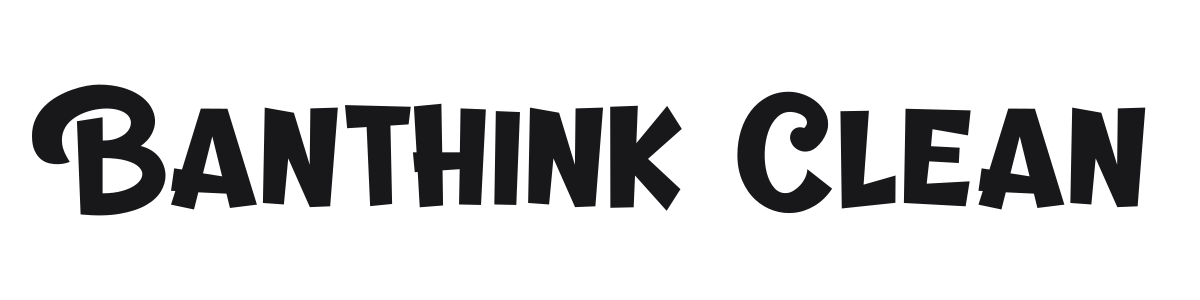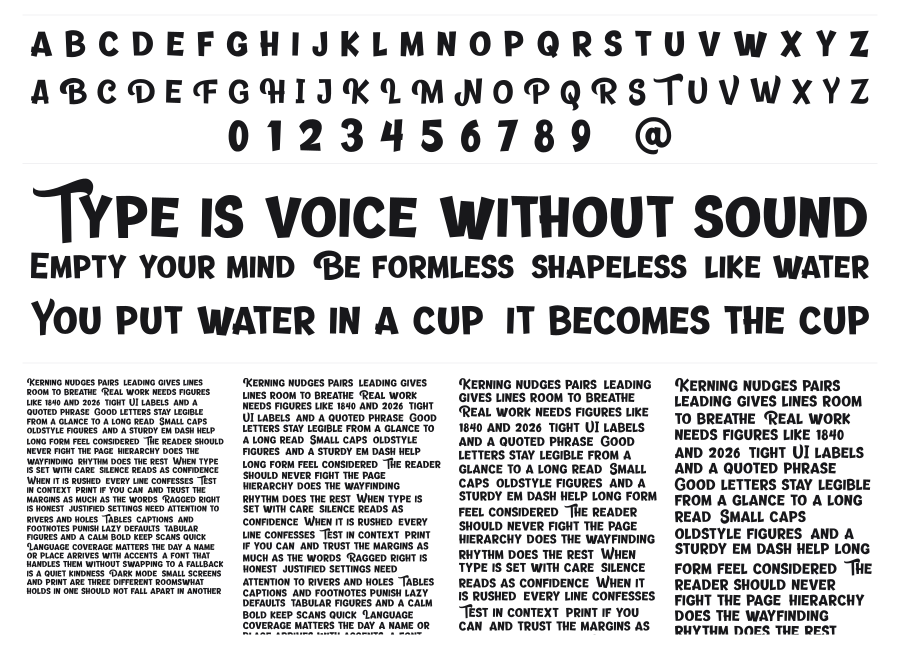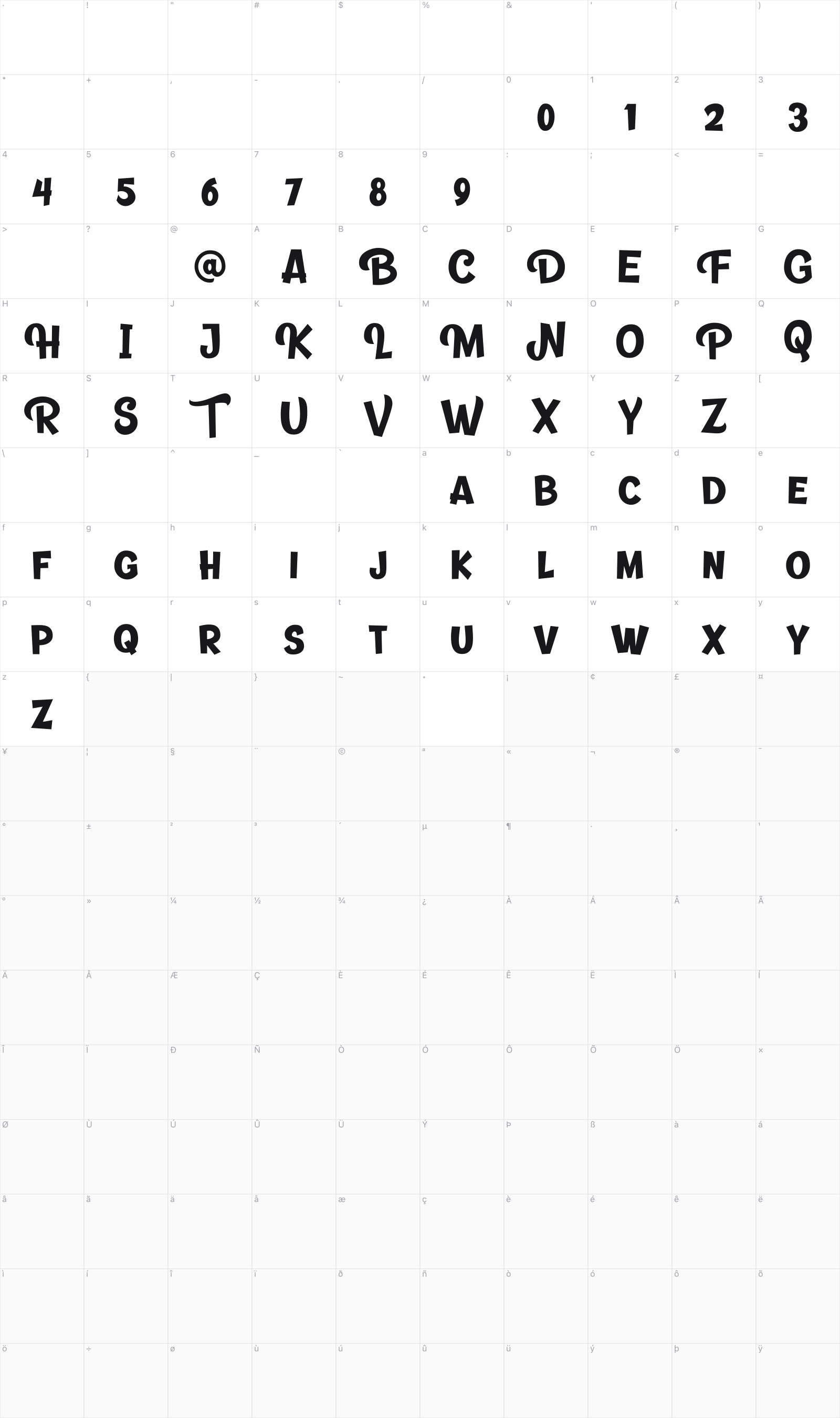
Banthink Clean
Banthink Clean is a bold, hand-drawn display sans with irregular letter heights and a chunky marker-pen texture. Each character tilts and breathes just enough to feel spontaneous without becoming chaotic. It works well for anything that needs casual energy: game titles, food packaging, comic headers.